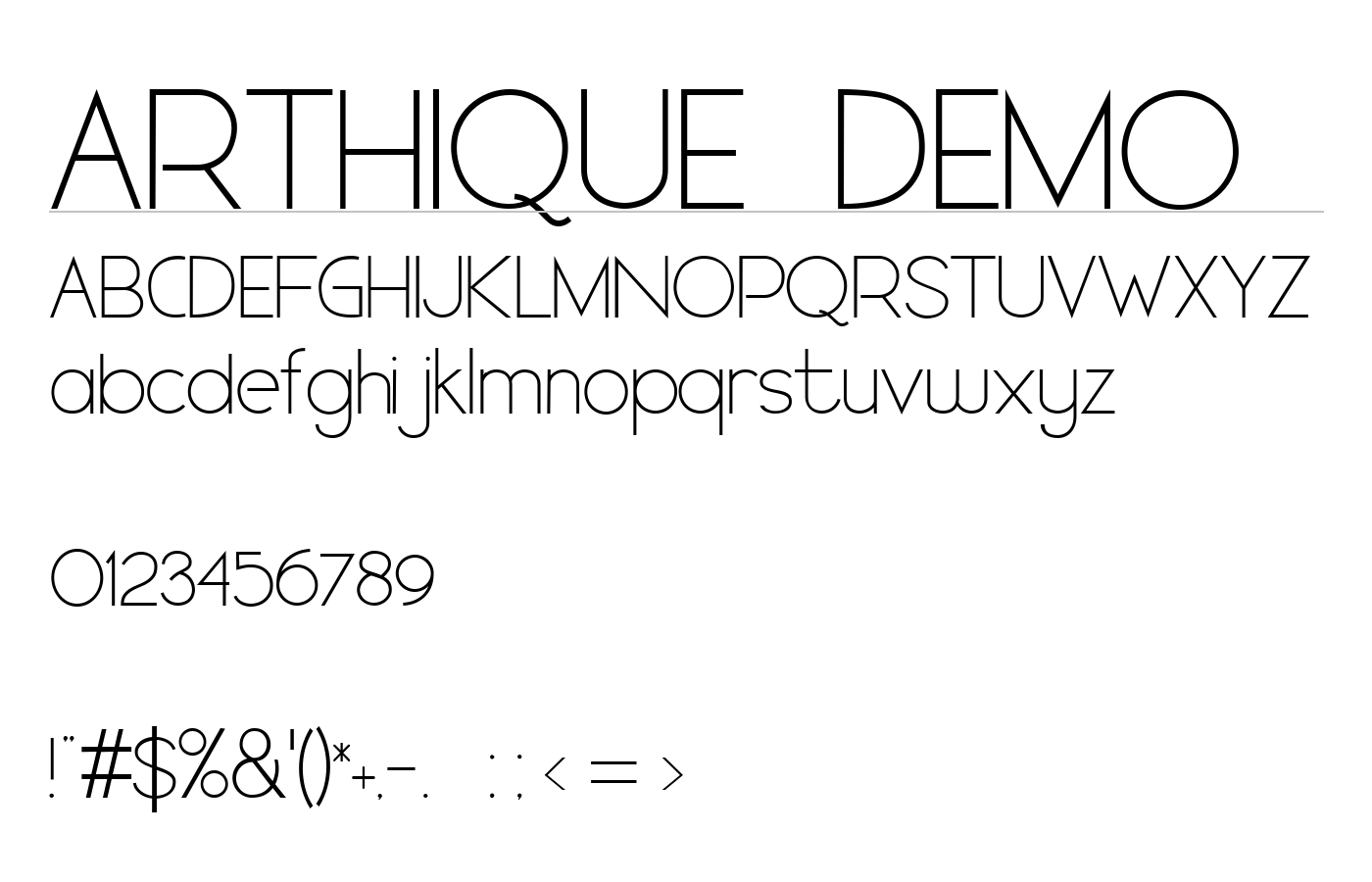
ARTHIQUE DEMO is a sleek, modern sans serif font characterized by its ultra-thin weight and elegant geometric shapes. Its narrow width and high x-height give it a sophisticated, airy feel, making it perfect for stylish branding, luxury packaging, and contemporary editorial design. This font stands out with its minimalist charm and refined letterforms, ideal for creating a modern, upscale look in headlines and logos.
ARTHIQUE DEMO Font
About ARTHIQUE DEMO Font
| Designer | MOH.TAUFIQ |